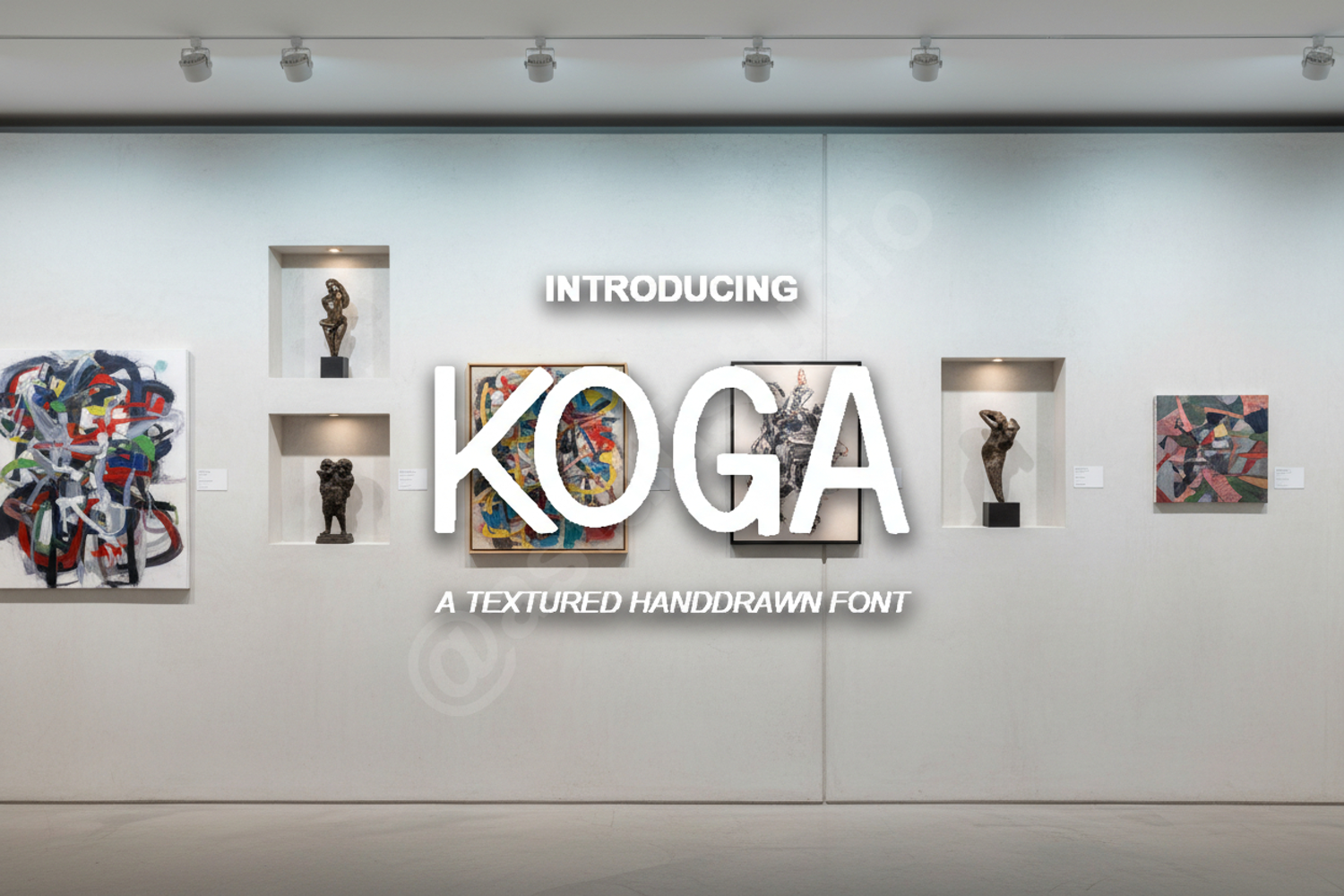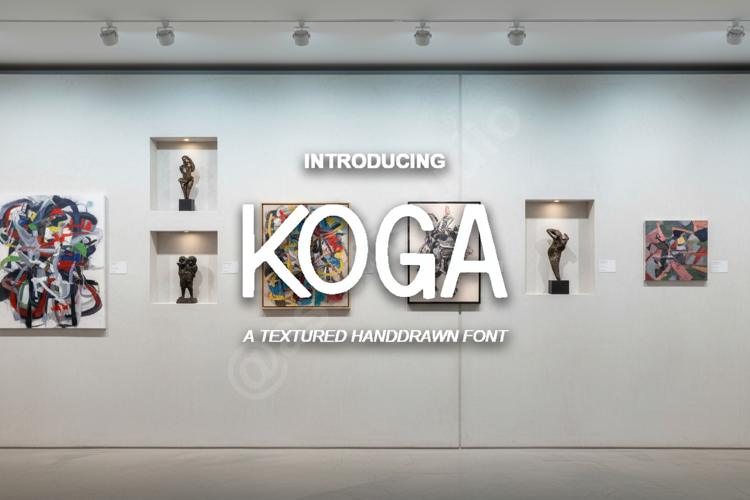
Koga - Modern Minimalist Sans Serif
Koga
Elevate your creative projects with Koga, a premium sans serif font that embodies modern minimalism and professional elegance. Crafted with precision, Koga offers a clean aesthetic that ensures readability while maintaining a high-end feel. Its versatile nature makes it an essential addition to any designer's toolkit.
- Full set of uppercase and lowercase letters
- Multilingual support for global design projects
- Branding and Identity: Create memorable logos and sophisticated brand guidelines.
- Luxury Packaging: Perfect for high-end product labels and minimalist packaging.
- Editorial Design: Ideal for sleek magazine layouts, headers, and body text.
- Social Media: Design striking graphics for Instagram, Pinterest, and digital marketing.
- Wedding Stationery: Add a contemporary and clean touch to invitations and event menus.